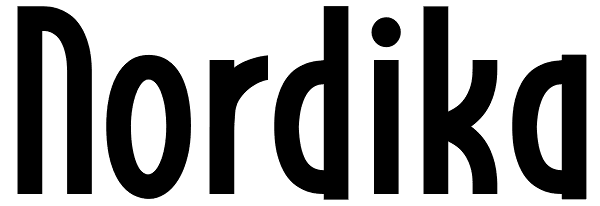
Nordika
Nordika is an understated, elegant, sans serif face with that clean legible corporate look. Its simple, trendy design makes it distinctive enough for display work. It makes a bold statement and is highly readable. Nordika is both condensed and quite...